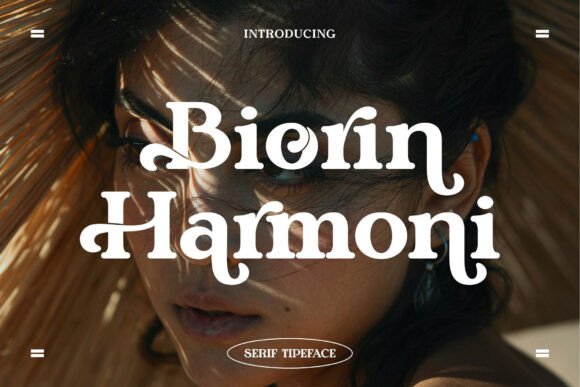
The Retro Revival: Uncovering the Charm of Biorin Harmoni Font
I’ll never forget the struggle I faced while working on a vintage-themed project for a client. I had to find the perfect font that would transport the audience back in time, evoking a sense of nostalgia and classic elegance. After scouring through countless font libraries, I stumbled upon Biorin Harmoni – a display serif font that instantly caught my attention. In this article, I’ll share my experience with Biorin Harmoni, its unique features, and how to make the most of it in your designs.
An Honest Review of Biorin Harmoni
- ✨ Classic retro feel: Biorin Harmoni delivers a timeless, vintage aesthetic that’s perfect for projects that require a touch of nostalgia.
- ✅ Bold and striking letters: The font’s bold design makes it ideal for headlines, titles, and emphasis.
- ✨ Elegant and unique details: Every aspect of Biorin Harmoni exudes sophistication and character.
While Biorin Harmoni is an excellent font, there are a few things to keep in mind:
- ⚠️ Limited use in body text: Due to its bold design, Biorin Harmoni might not be the best choice for lengthy paragraphs.
- 🤔 Glyph compatibility: Some glyphs or special characters might not work seamlessly with certain platforms or software.
The Designer Inspiration Behind Biorin Harmoni
Biorin Harmoni was designed with the goal of creating a font that embodies the essence of classic elegance and retro charm. The designer’s inspiration came from vintage typography, carefully crafted to evoke a sense of nostalgia and timelessness. By combining bold, striking letters with elegant details, Biorin Harmoni was born – a font that’s perfect for designers looking to add a touch of sophistication to their projects.
Q: What type of projects is Biorin Harmoni best suited for?
A: Biorin Harmoni is ideal for projects that require a classic, retro aesthetic, such as vintage-themed designs, luxury brands, and editorial projects.
Q: Can I use Biorin Harmoni for body text?
A: While Biorin Harmoni can be used for body text, its bold design makes it more suitable for headlines, titles, and emphasis.
Q: Is Biorin Harmoni compatible with all platforms?
A: Biorin Harmoni is compatible with most platforms, but some glyphs or special characters might not work seamlessly with certain software or devices.